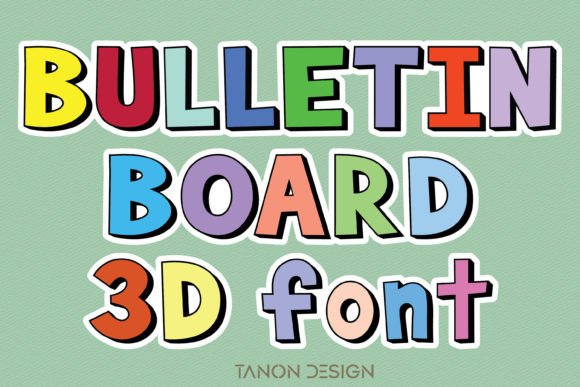
A Personal Review: What I Love About Bulletin Board Font
Here’s what makes Bulletin Board Font a top pick for me:
- ✨ Perfect for kids’ activities: The font’s playful and vibrant vibe makes it an excellent choice for school projects, events, and activities.
- ✅ Easy to read: The 3D design ensures that your text is not only visually appealing but also easy to read from a distance.
While Bulletin Board Font is an excellent choice, there are a few things to keep in mind:
- 🤔 Limited font weights: The font may not offer multiple weights, which could limit your design options.
- ⚠️ Not suitable for body text: Due to its decorative nature, Bulletin Board Font is best used for headings and titles, rather than body text.
The Designer Inspiration Behind Bulletin Board Font
Bulletin Board Font was designed with the intention of creating a fun, engaging, and easy-to-read font for school classrooms and kids’ activities. The designer’s goal was to craft a font that would inspire creativity and make learning more enjoyable.
| Font Name | Bulletin Board Font |
| Author | tanondesign |
| What is Bulletin Board Font best used for? | Bulletin Board Font is perfect for school classroom bulletin boards, door decorations, kids’ activities, and school projects. |
| Is Bulletin Board Font suitable for body text? | No, Bulletin Board Font is best used for headings and titles due to its decorative nature. |